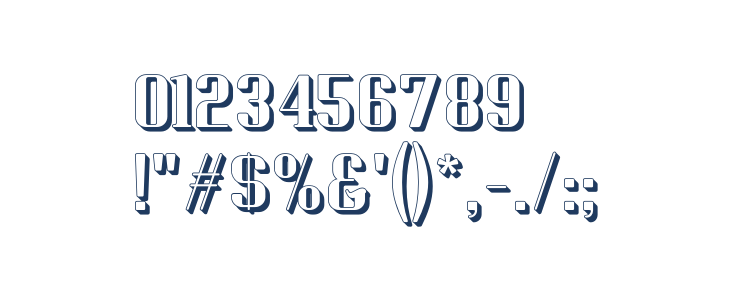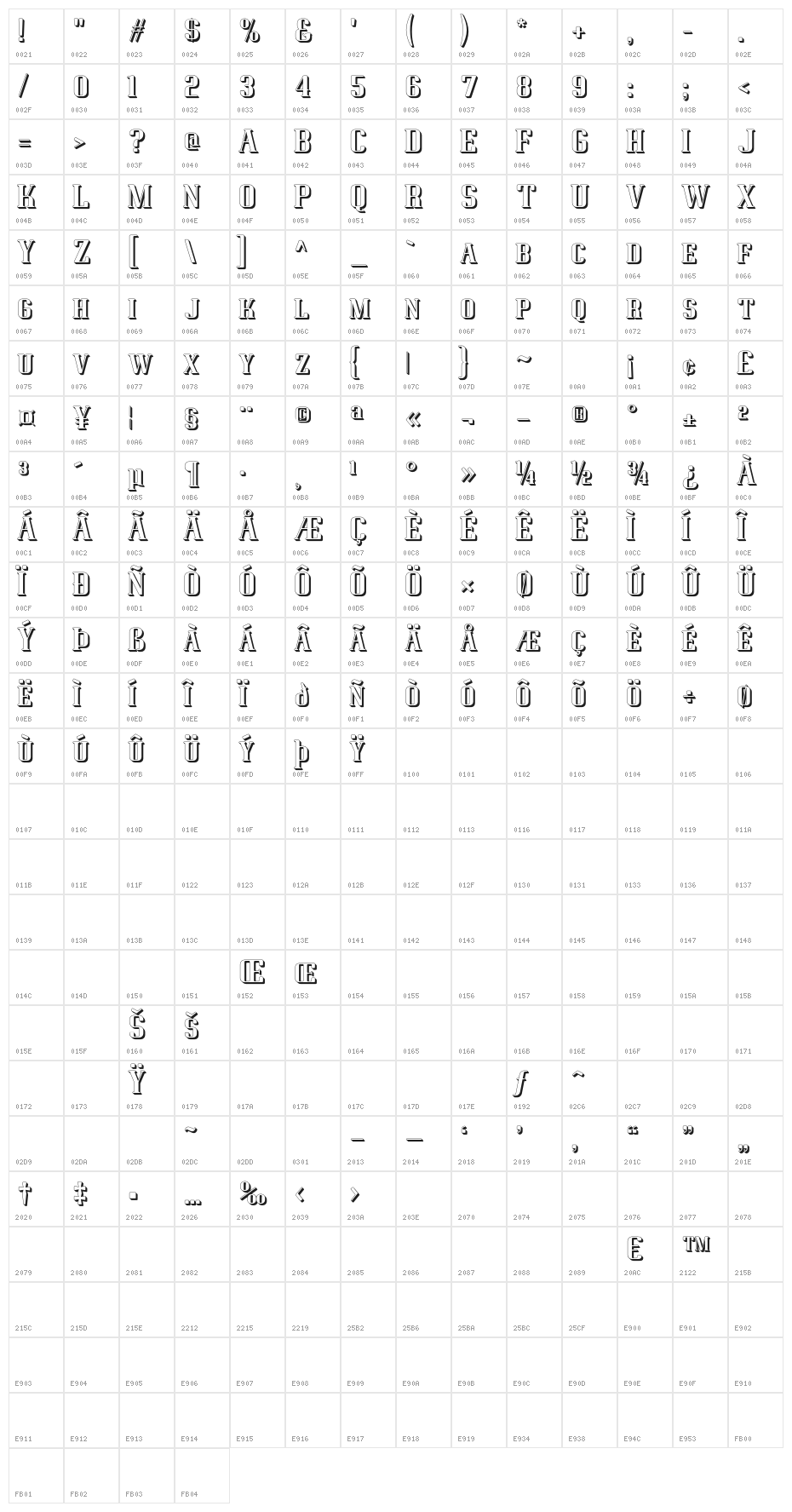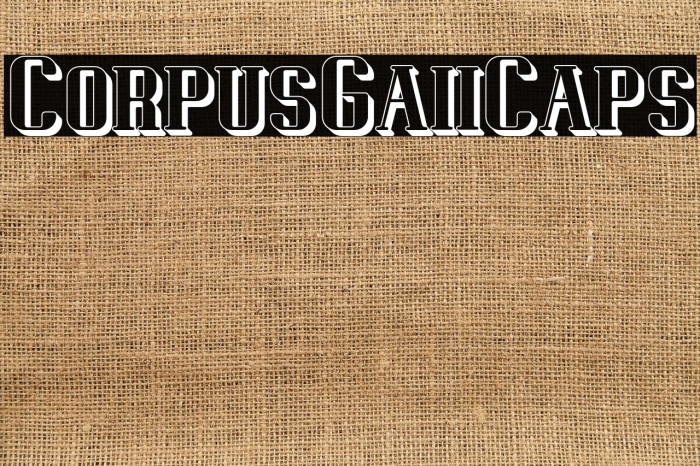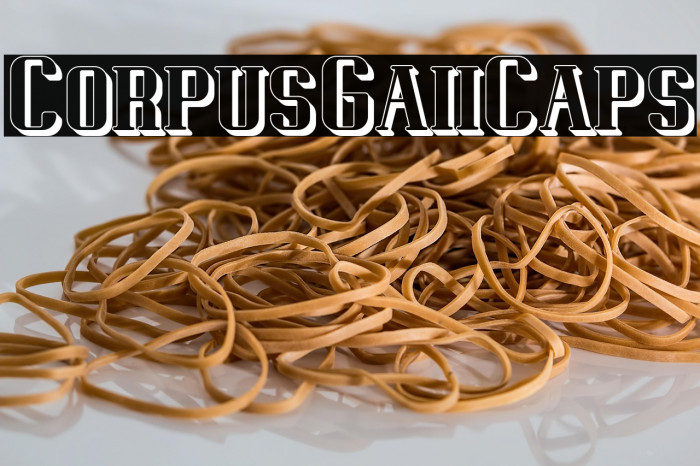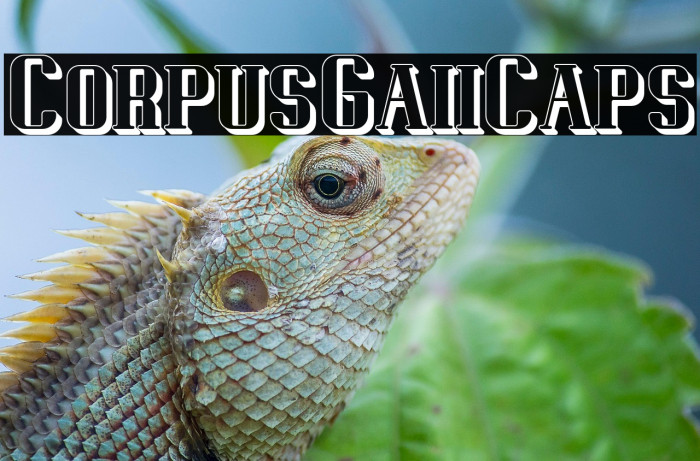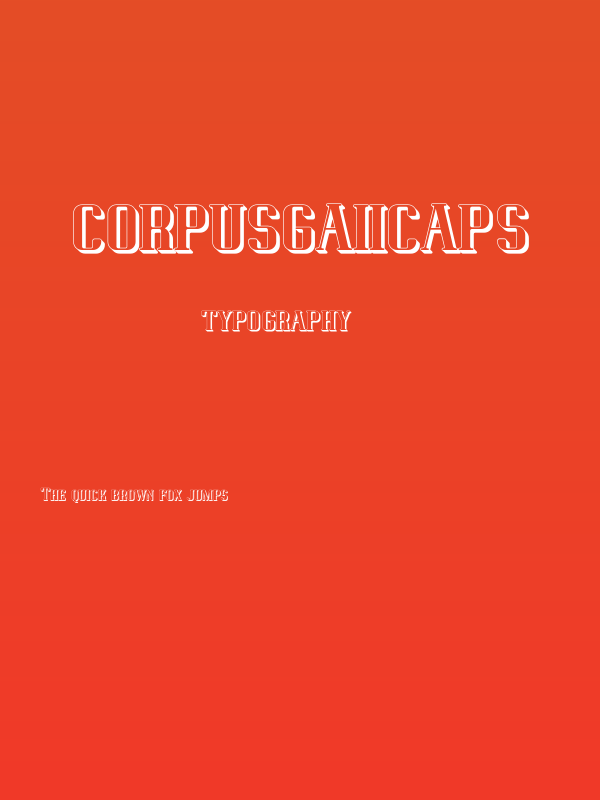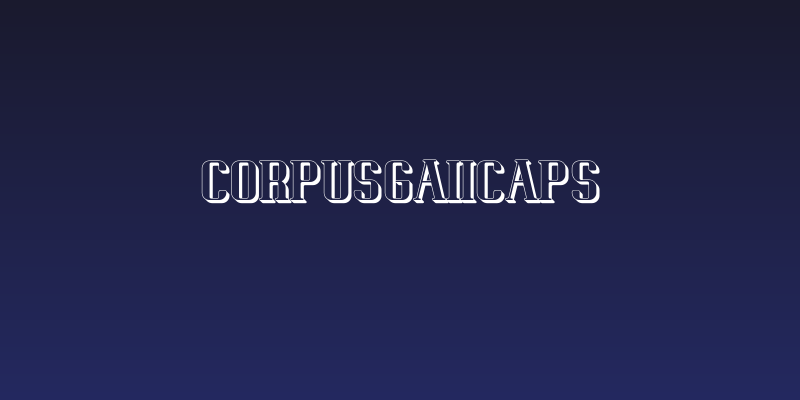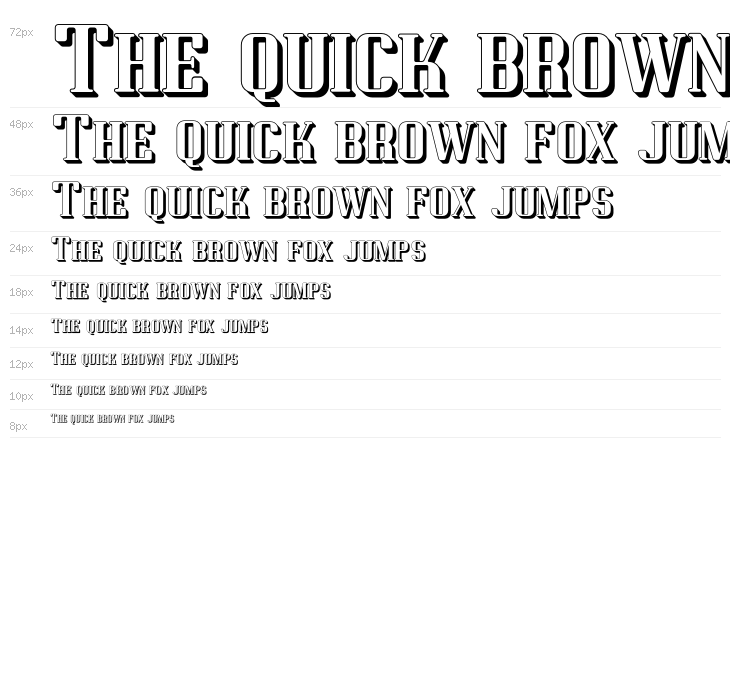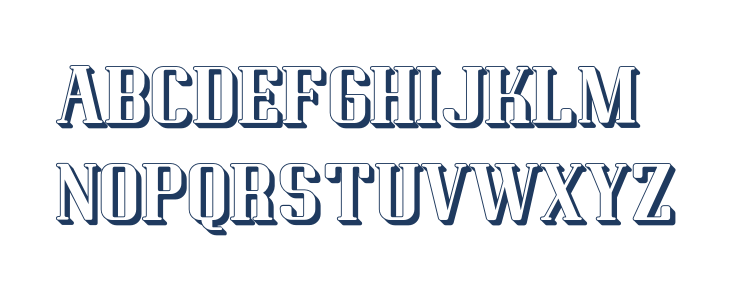
CorpusGaiiCaps Font
| Stile generale | Vintage, Decorative |
| Progetti proposti | Ideal for vintage-themed posters, signage, branding, and any project requiring a bold, eye-catching typeface. |